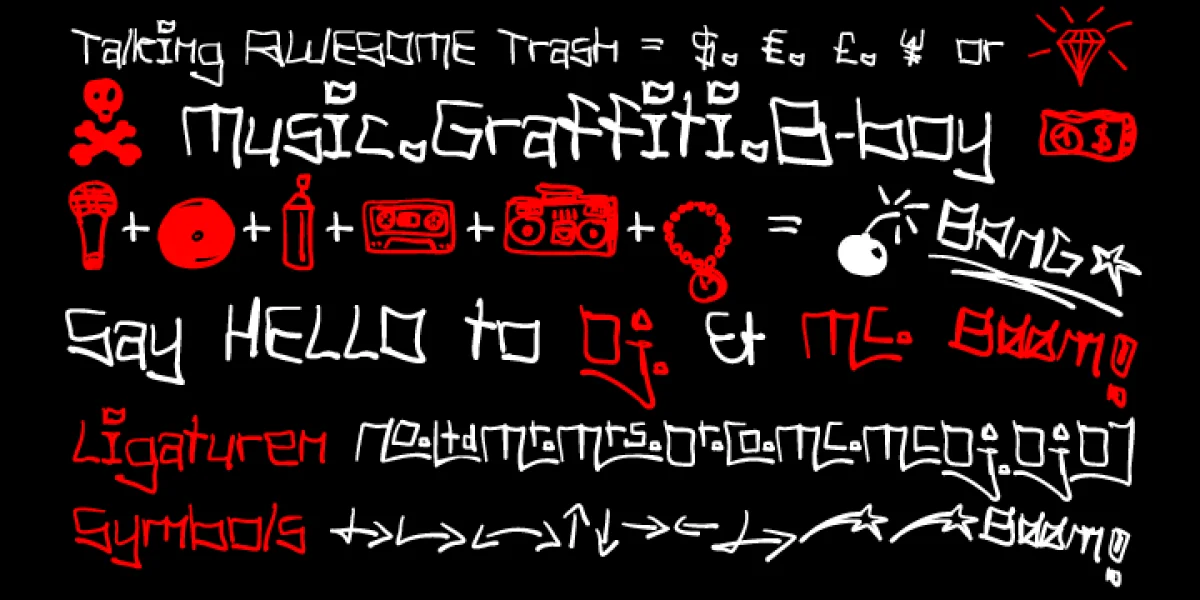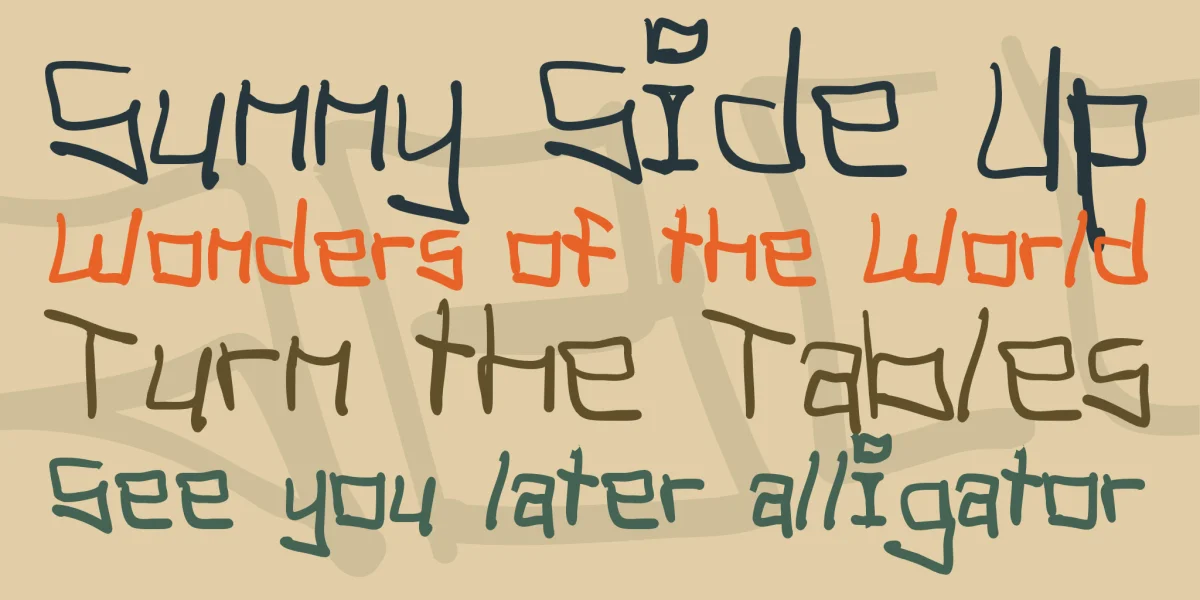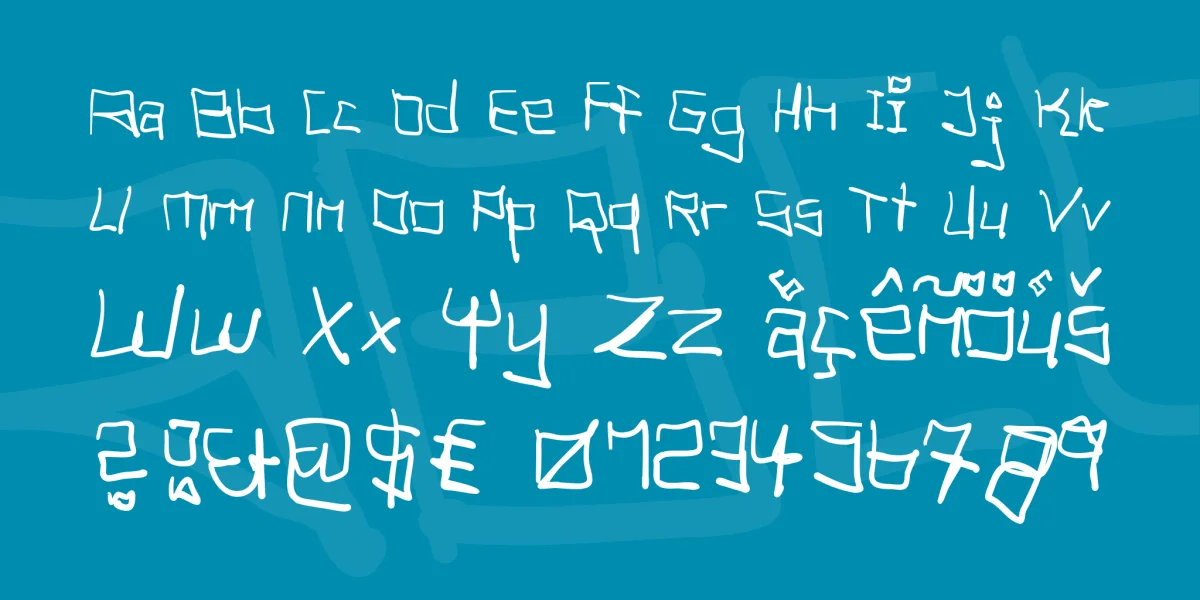
CHARACTERISTICS The fresh and unique character of the typeface are awesome BOOM! The letter-forms are associated urban graffiti tags and pieces. Many Dingbat symbols like microphone, tape deck, ghetto blaster, vinyl, etc. make this font really fresh n HOT!
APPLICATION AREA The handwritten, sloppy, square, shaky and fresh urban script font »Tag Hand Graffiti Trash« BANG! would look good at display size for headlines in magazines or websites, movie posters, music covers artworks or music webbanner.
TECHNICAL SPECIFICATIONS Headline Font / Display Font / Fancy Font — Tag Hand Graffiti Trash OpenType Font with 393 glyphs — alternative letters and ligatures like Mr, Mrs, Ltd, Co, Dr, Mc, Dj etc. (with accents & €) & 2 styles (regular & fat) + dingbats like diamant, tape deck, microphone, vinyl etc.